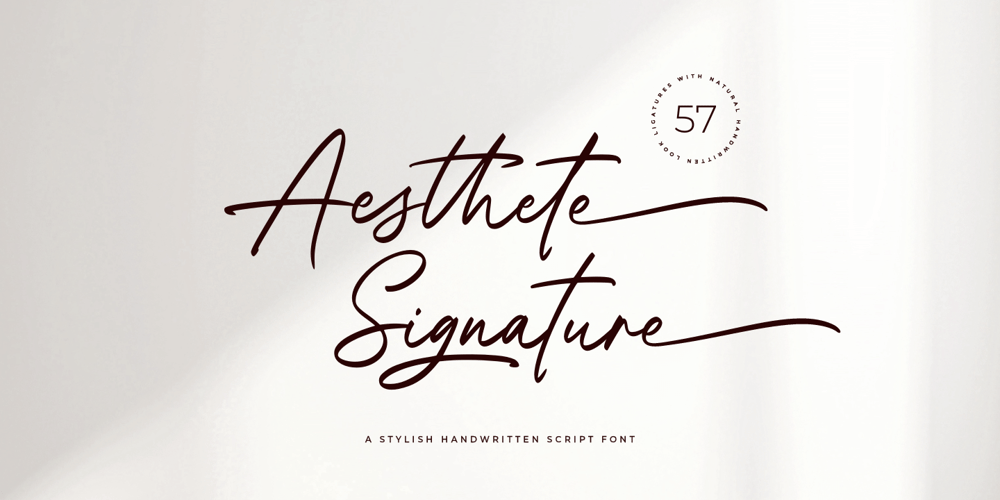
Aesthete Signature Font Family was designed by Ainun Jinan and published by Jinan Studio. Aesthete Signature contains 1 styles and family package options. Aesthete Signature embodies elegance and style in a handwritten font, with 57 perfectly integrated ligatures that give your projects a natural look and a touch of elegance. Offering a variety of alternative options to enhance your designs, this font makes a fun embellishment for a variety of design endeavors. Its versatility stands out, making it perfect for wedding-themed creations, dazzling wedding invitations, Valentine’s Day, promotional materials, branding initiatives, business cards that leave a lasting impression, inspirational quotes, and a wide variety of design endeavors seeking a blend of sophistication and appeal. Additionally, multilingual support ensures global appeal, adding a touch of beauty across language boundaries.Features A set of uppercase and lowercase glyphs Number, symbol, and punctuation Multilingual Support Alternates, ligatures, and swashes PUA encoded Type j_1 until j_8 to features swash, ligatures will automatically replace the standard letter pairs whenever available, when using any OpenType capable software.